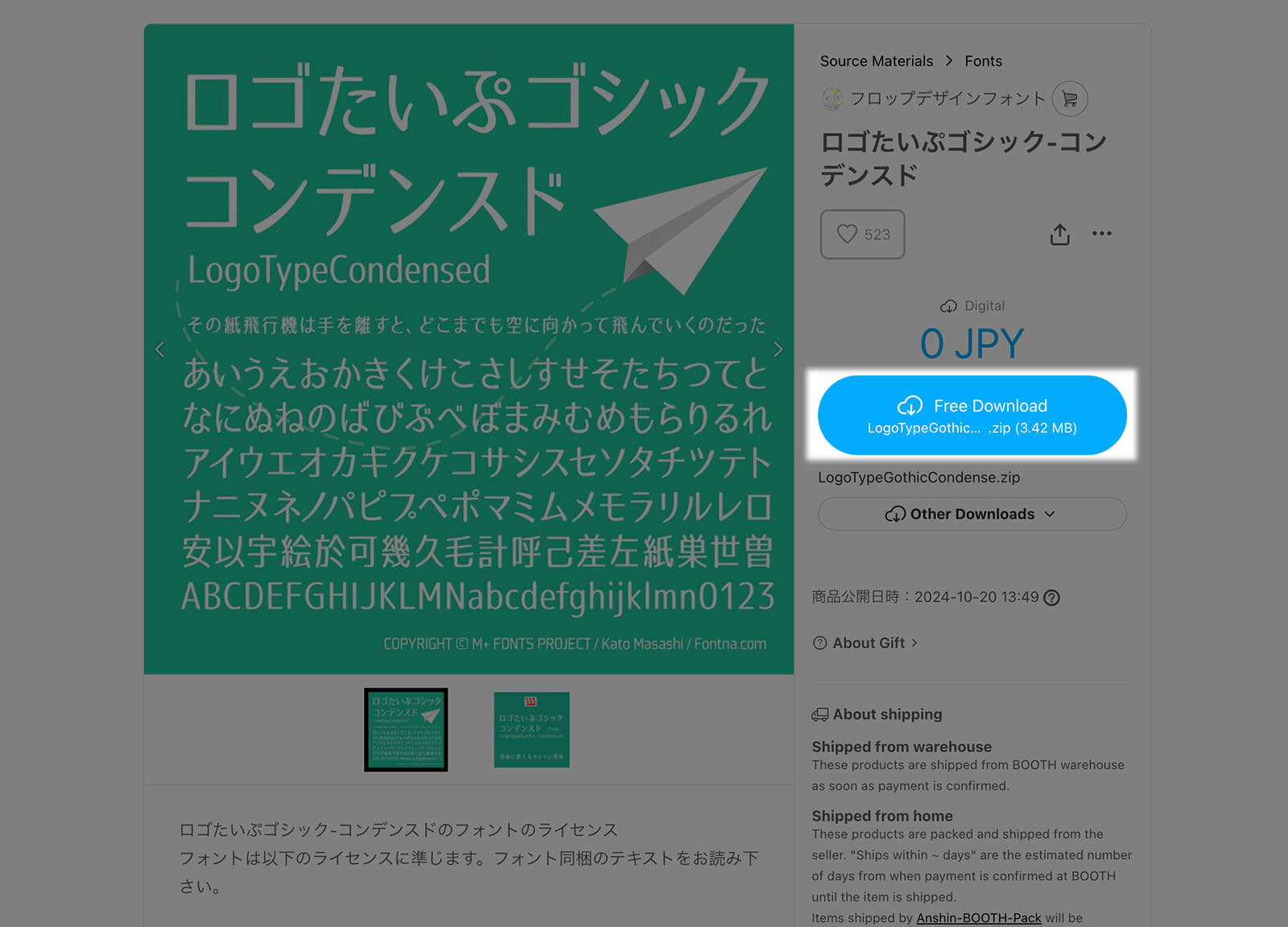
Logo Type Gothic Condensed
Logo Type Gothic Condensed (ロゴたいぷゴシック-コンデンスド) is the condensed version of the previously introduced Logo Type Gothic. It has the modern cool-looking that’s suitable for logo type, but also has the elegant feel in it too. The hiragana and katakana was originally designed by Kato Masashi, while other glyphs like kanji and latin characters were completed with M+ font.